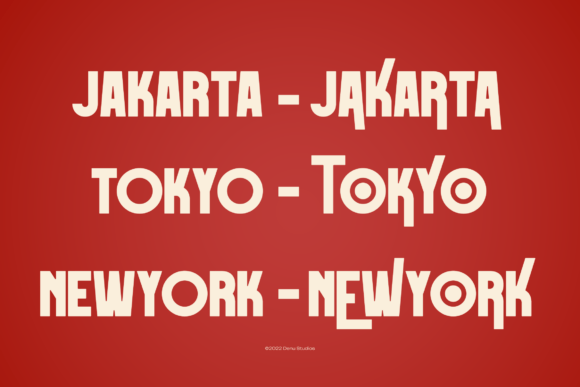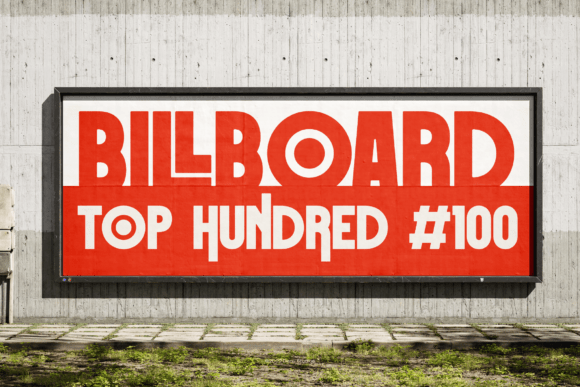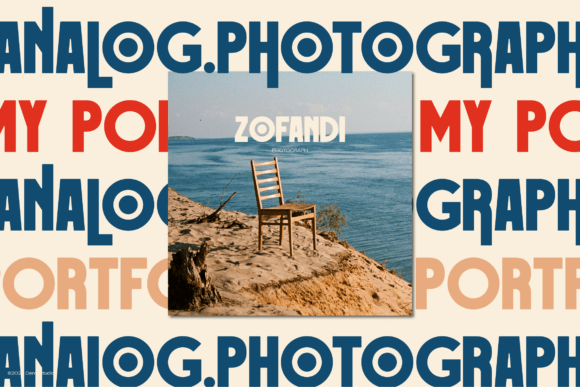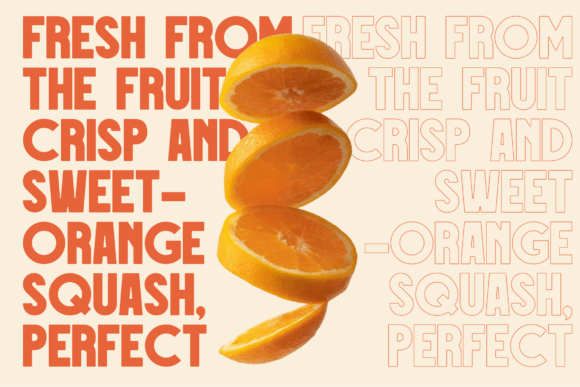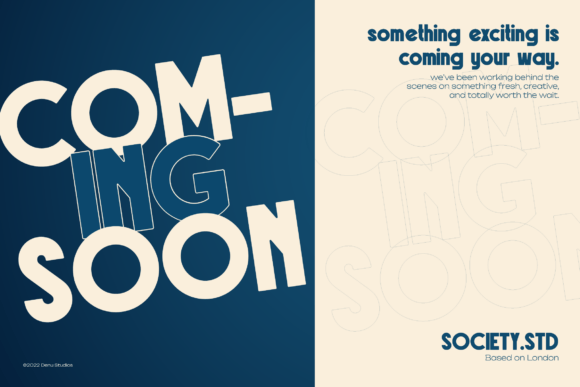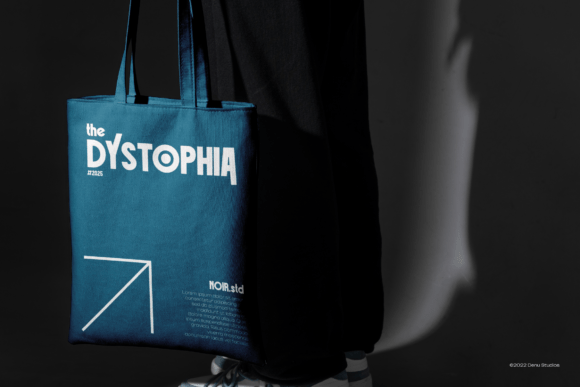
Aeterna Monaliya Font: Elevate Your Designs with Bold Sophistication
In the world of typography, fonts play a crucial role in conveying messages, expressing emotions, and creating lasting impressions. For designers and crafters seeking a bold, modern sans-serif font that exudes strength and sophistication, Aeterna Monaliya is an exceptional choice. This stunning typeface is specifically designed for impactful display, making it perfect for posters, headlines, and branding projects that demand attention.
Clean Lines, Sharp Angles, and Endless Possibilities
Aeterna Monaliya’s design is characterized by clean lines and sharp angles, which give it a sleek, contemporary look that’s both visually striking and highly legible. The font’s bold nature makes it an excellent selection for headlines, titles, and short phrases, while its modern sans-serif style ensures versatility and adaptability across various design applications.
Crafting Impactful Designs with Aeterna Monaliya
Whether you’re working on a poster, brochure, or branding project, Aeterna Monaliya is an excellent choice for creating eye-catching displays. Its robust design and sophisticated aesthetic make it an ideal font for:
- Posters: Create bold, attention-grabbing posters that communicate your message with clarity and style.
- Headlines: Use Aeterna Monaliya to craft headlines that demand attention and leave a lasting impression.
- Branding: Establish a strong brand identity with Aeterna Monaliya’s modern, sophisticated design.
Why Choose Aeterna Monaliya?
With so many fonts available, why should you choose Aeterna Monaliya for your design projects? Here are just a few compelling reasons:
- Uniqueness: Aeterna Monaliya’s bold, modern design sets it apart from more traditional fonts.
- Legibility: The font’s clean lines and sharp angles ensure excellent legibility, even at larger sizes.
- Versatility: Aeterna Monaliya’s sans-serif style makes it suitable for a wide range of design applications.
- Impact: The font’s bold nature guarantees to grab attention and make a lasting impression.
Tips for Using Aeterna Monaliya Effectively
To get the most out of Aeterna Monaliya, consider the following tips:
- Use it boldly: Aeterna Monaliya is designed to make a statement, so don’t be afraid to use it in bold, eye-catching displays.
- Experiment with colors: The font’s modern design looks great in a variety of colors, so feel free to experiment and find the perfect hue for your project.
- Pair it wisely: Aeterna Monaliya pairs well with clean, simple fonts that provide a nice contrast to its bold design.
Aeterna Monaliya is a bold, modern sans-serif font that’s perfect for designers and crafters seeking to elevate their designs with sophistication and impact. Its clean lines, sharp angles, and robust design make it an excellent choice for posters, headlines, and branding projects. With its versatility, legibility, and unique aesthetic, Aeterna Monaliya is sure to become a go-to font in your design arsenal.